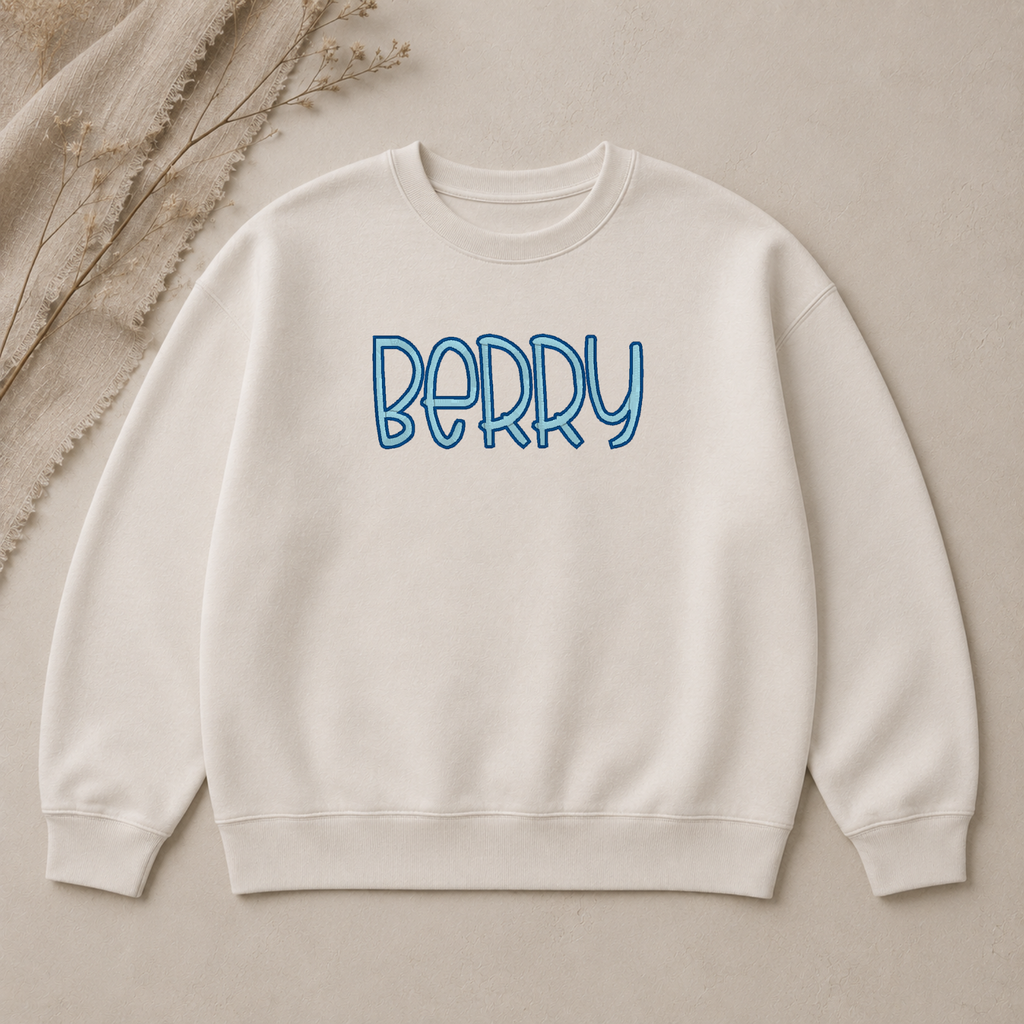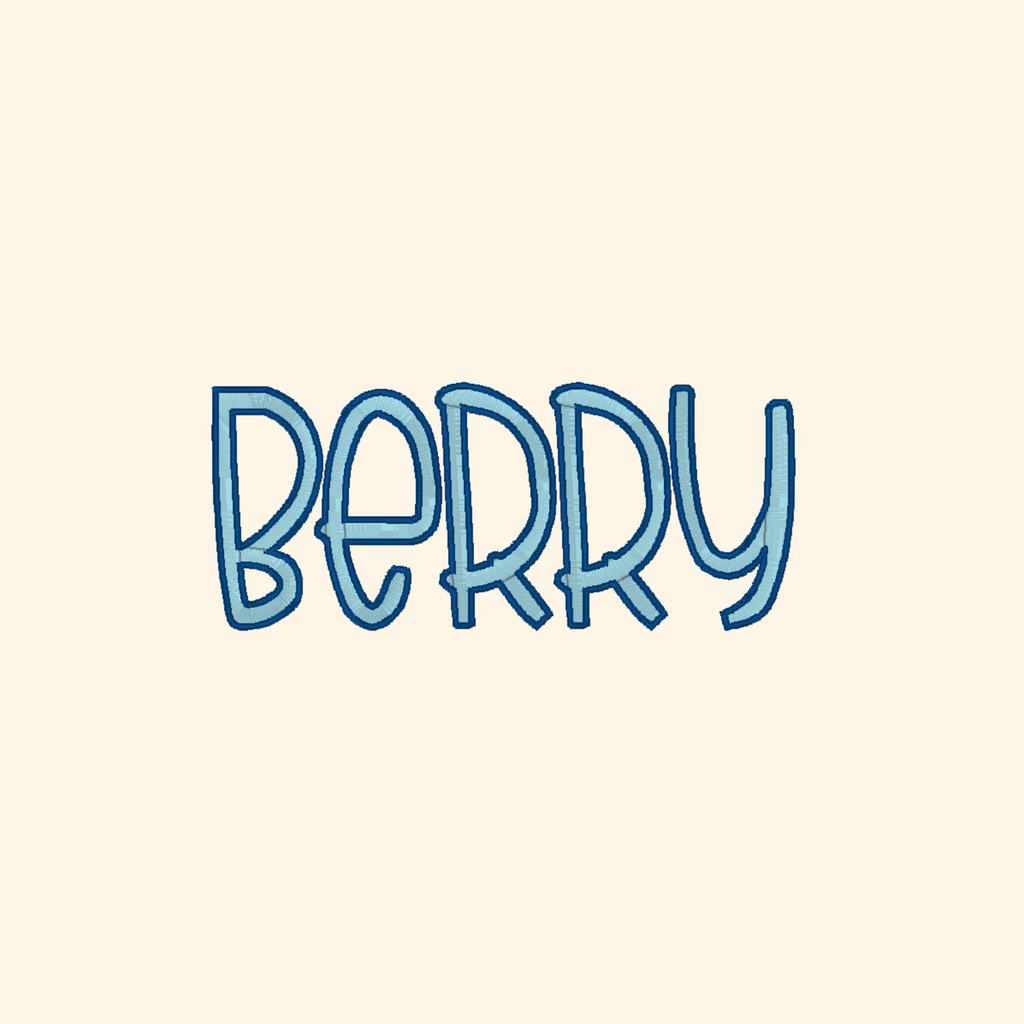
Berry embroidery font, Dual color font, Machine embroidery font, 7 Formats + 7 Sizes
🪡Berry - premium embroidery font.
Take your projects to the next dimension with this dual-color professional machine embroidery alphabet! Specially digitized for high-impact results, this font is the perfect choice for creating any item that requires embroidery.